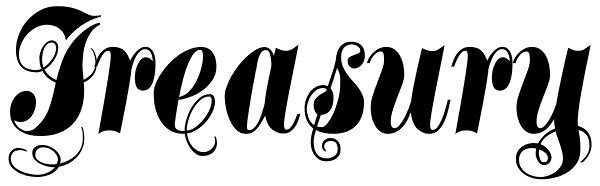
Treasury
The Treasury script waited over 130 years to be digitized, and the Canada Type crew is very proud to have done the honors. And then some. After seven months of meticulous work on some of the most fascinating letter forms ever made, we can easily say...